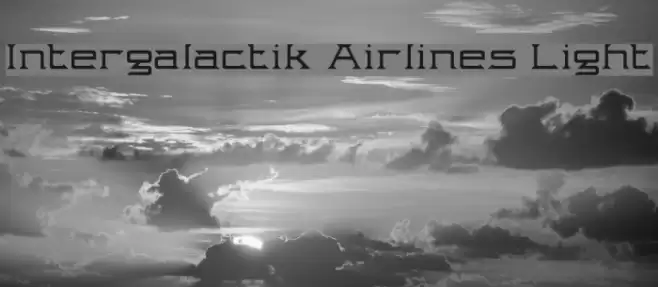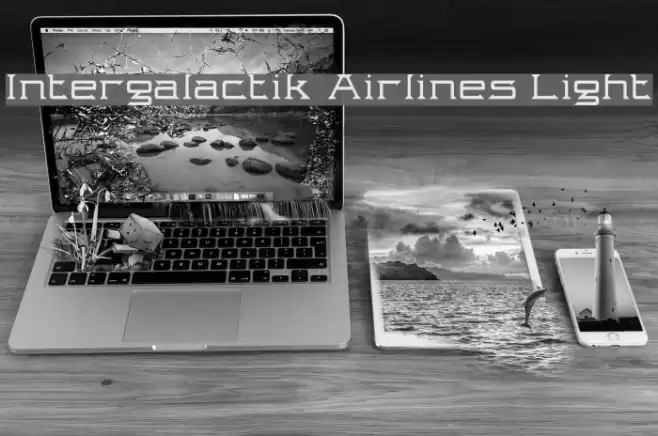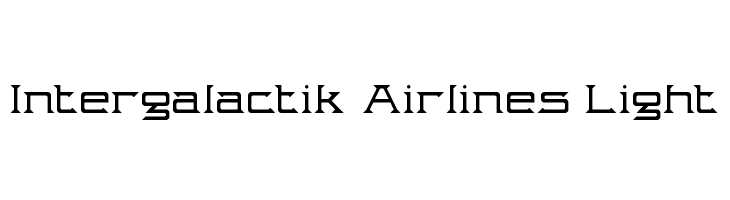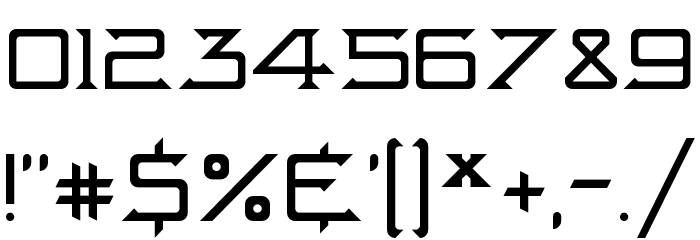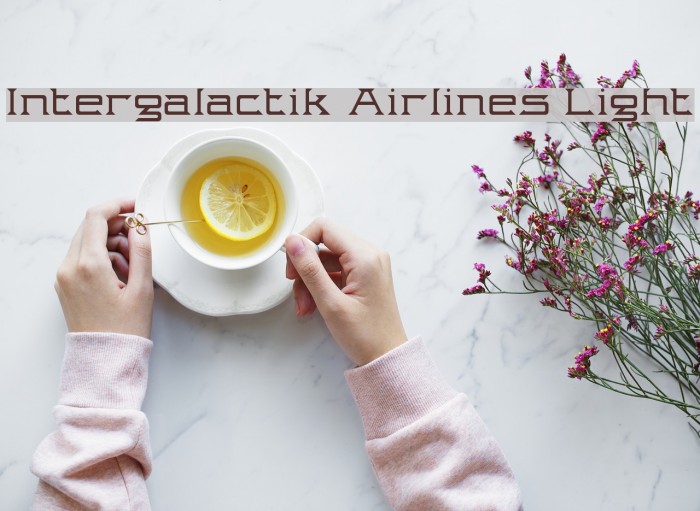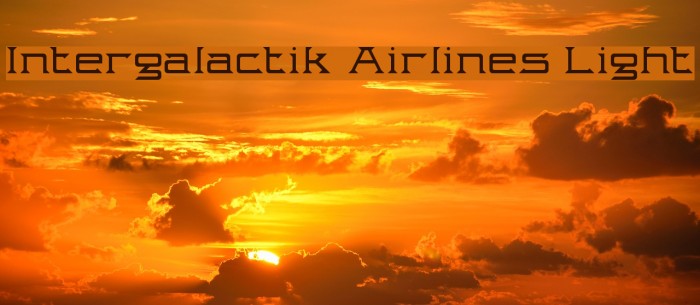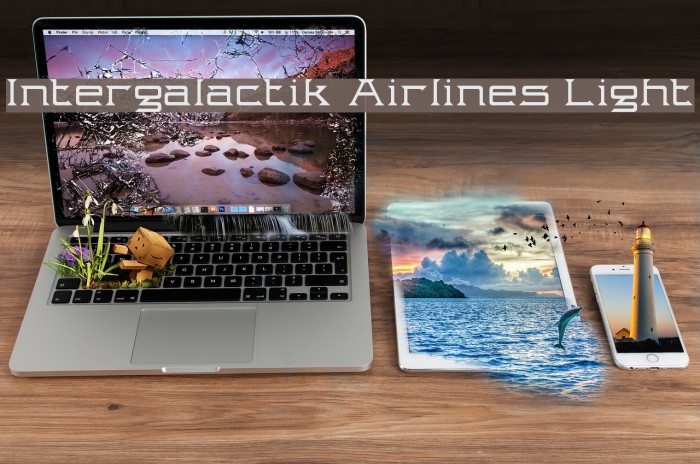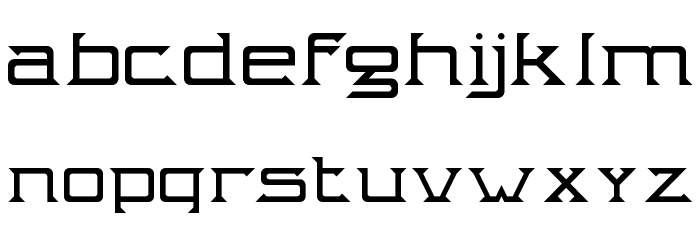
Intergalactik Airlines Light Font
Intergalactik Airlines Light Description
This font features a futuristic and angular design, characterized by sharp edges and geometric shapes. The uppercase and lowercase letters maintain a consistent style, with unique cutouts and angles that give it a distinct, modern appearance. The numerals and special characters follow the same design principles, ensuring uniformity across all glyphs. This font is ideal for projects that require a sci-fi or tech-inspired aesthetic, offering a bold and innovative look that stands out.
A futuristic, angular font with sharp edges and geometric shapes from Sci-fi fonts.
- Proposed Projects: Ideal for sci-fi movie posters, tech branding, video game titles, and futuristic-themed designs.
- Weight: Light
- Overall Style: Futuristic